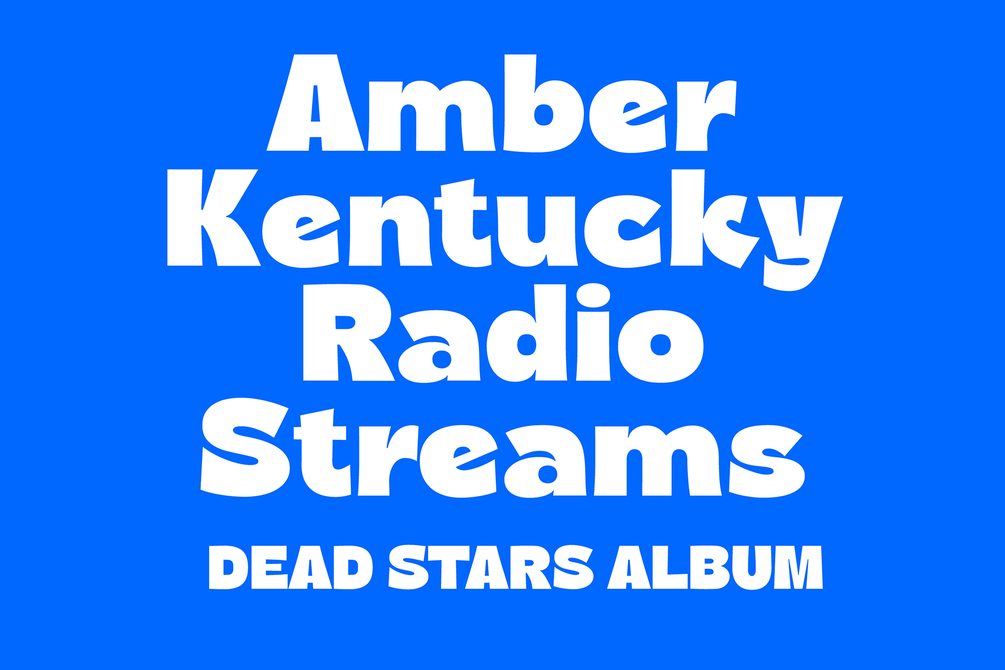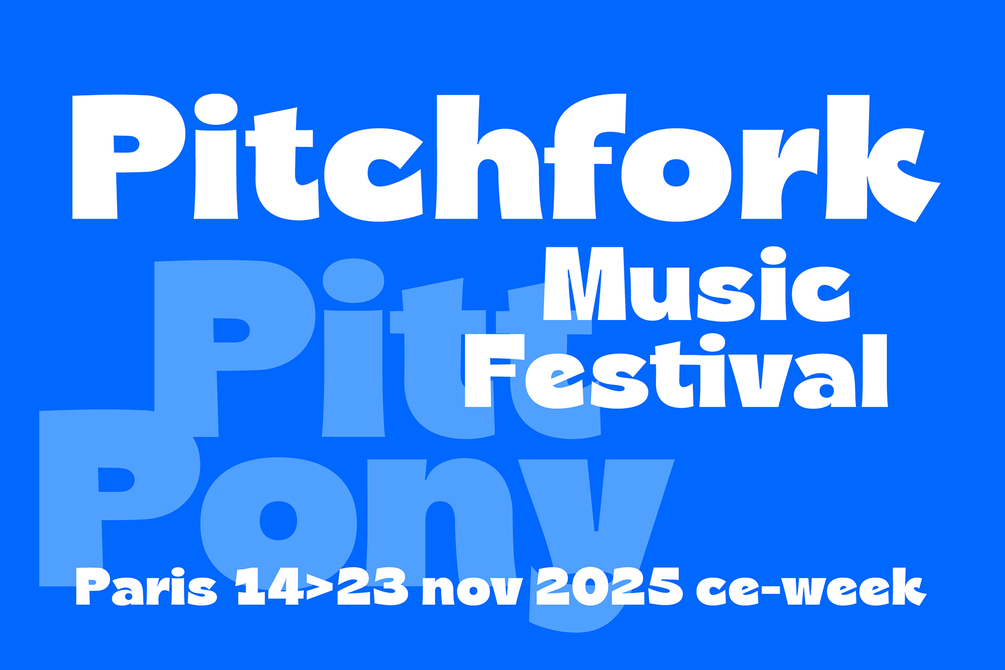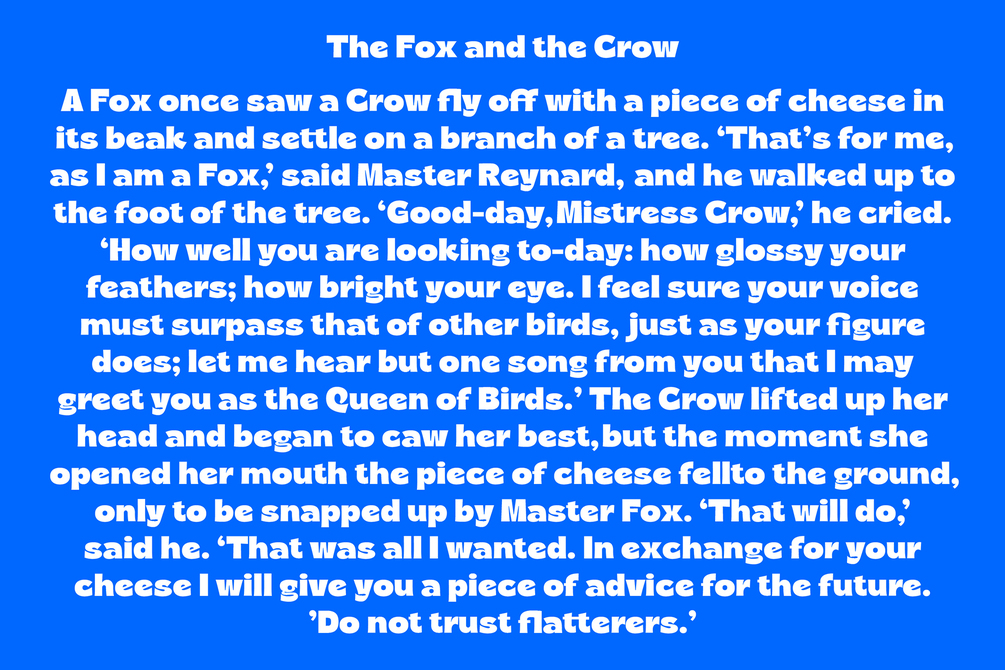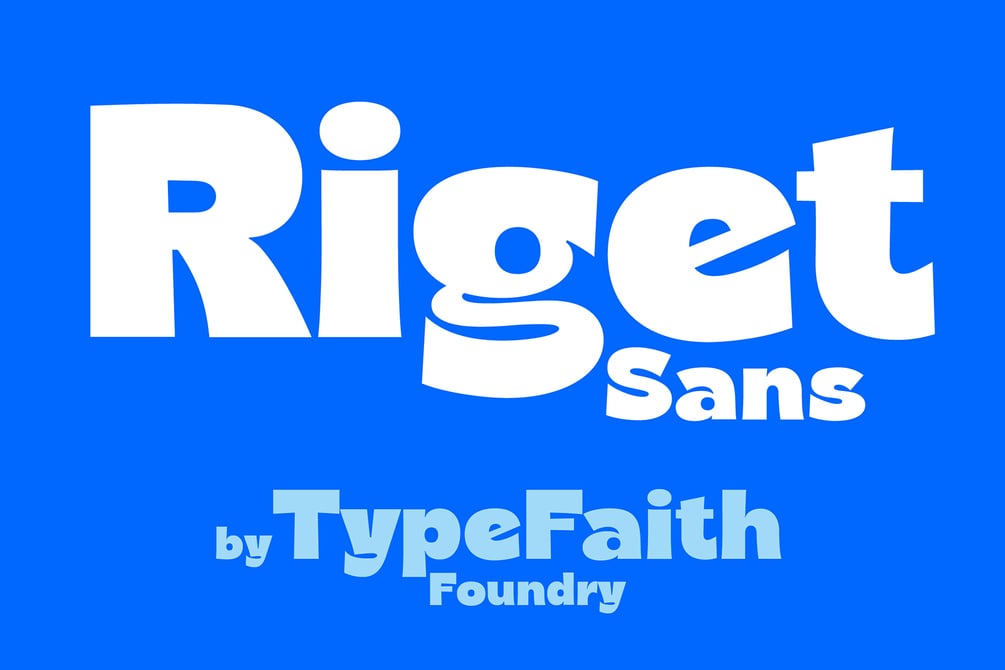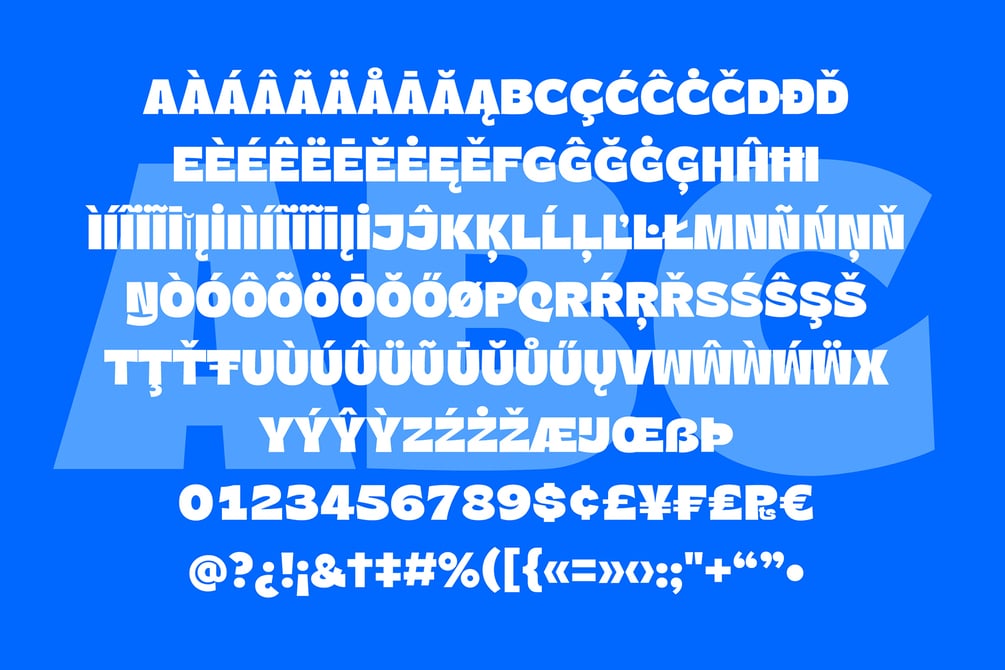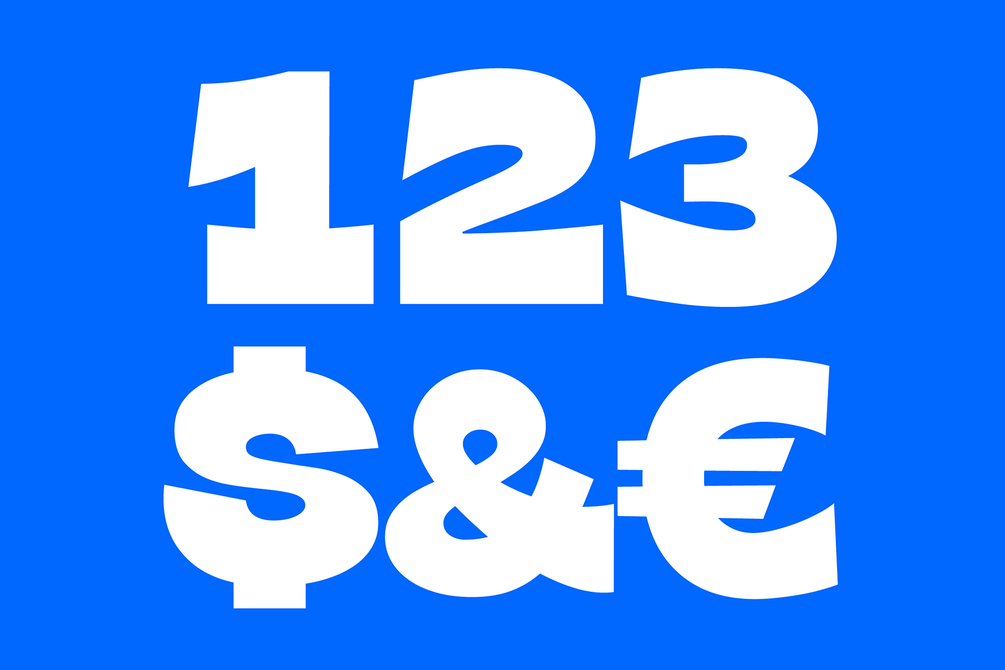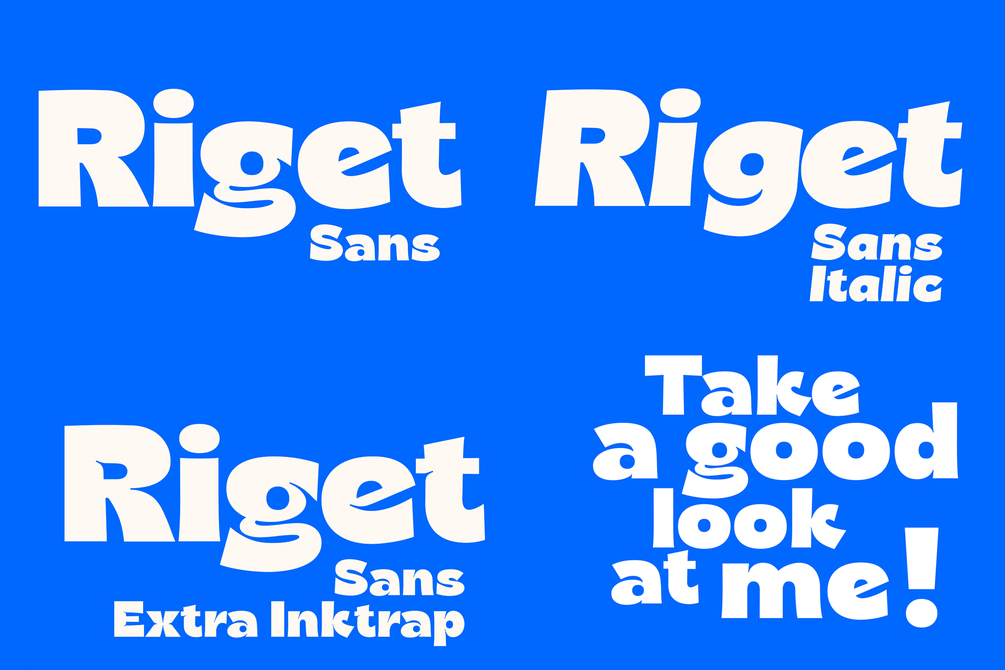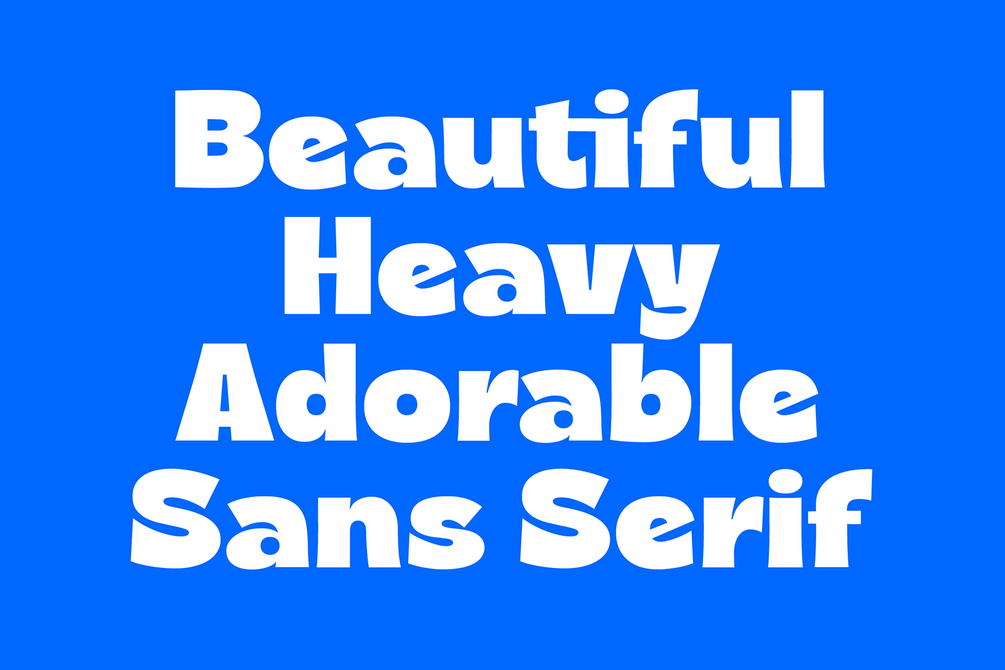
Riget Sans
Riget Sans is an extra-expanded font with a playful soul — a true attention-grabber that brings posters, flyers, and covers to life. Inspired by classic UltraExpanded grotesques like Helvetica and Univers, and infused with the bold energy of 90’s cartoon and comic typography, Riget Sans strikes the perfect balance between retro and modern.
Riget comes in three styles: Normal, Italic and Extra Inktrap
With its dynamic and versatile personality, Riget Sans is a creative gift for any project. Its heavy weight and full-bodied shapes with tight counterforms make it ideal for bold headlines that demand to be seen. Think high-impact headlines, extraordinary posters, and outstanding book covers.
Bold Typography for Big Ideas, from logotypes and branding to packaging and editorial design — Riget Sans guarantees a daring, standout look for your designs.